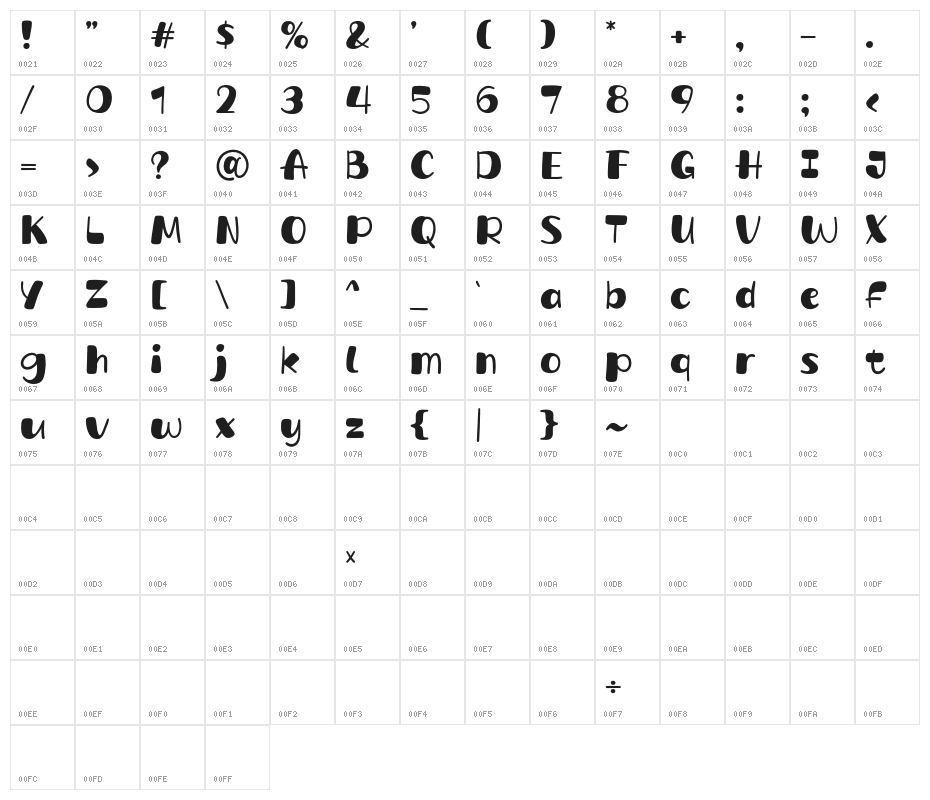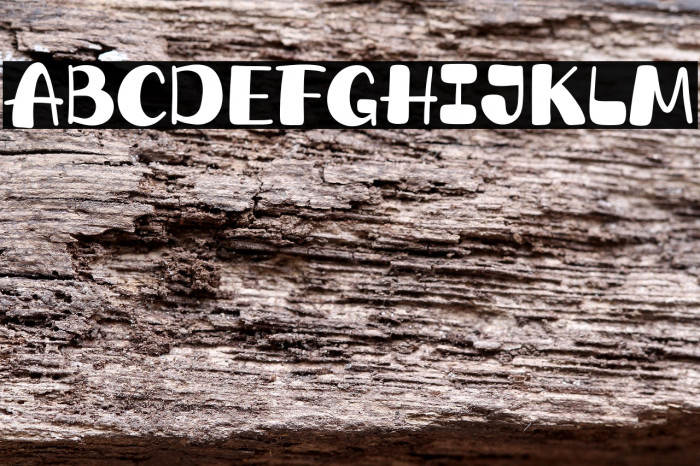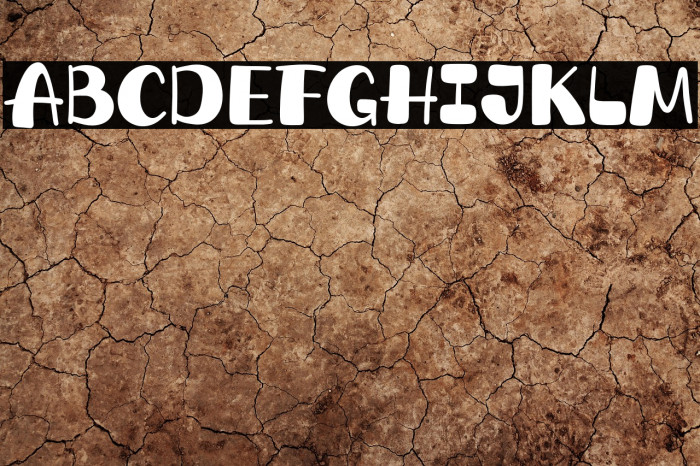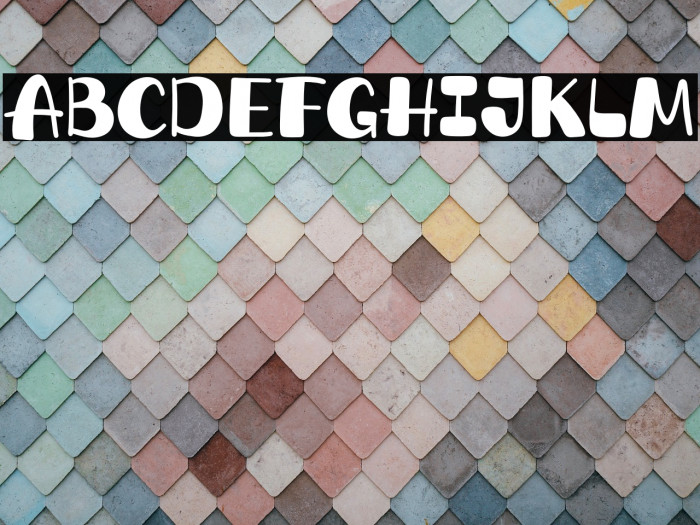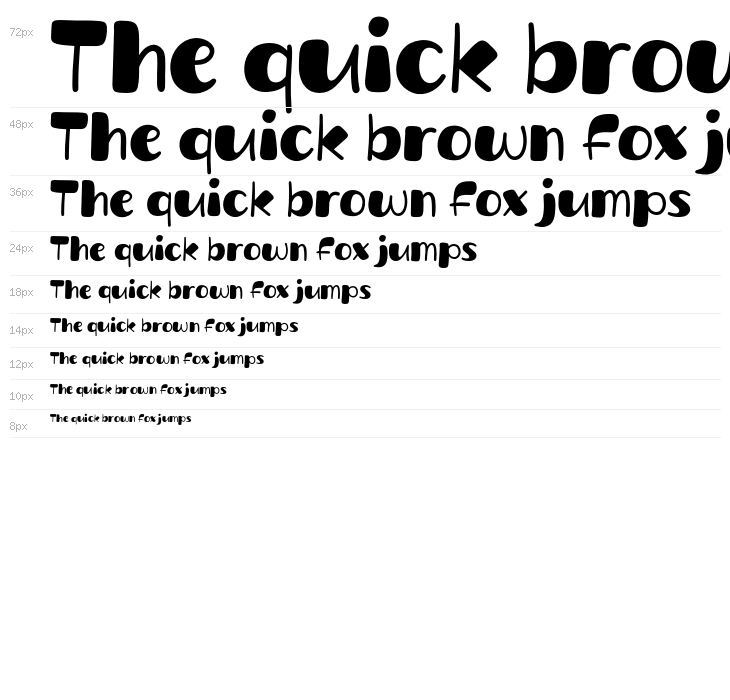
Quicky Story Font
This playful and bold font features a unique blend of rounded and angular elements, creating a lively and dynamic appearance. The characters are thick and substantial, with a whimsical touch that adds personality to any text. The uppercase letters are particularly striking, with a strong presence that commands attention. Lowercase letters maintain the playful theme, with rounded edges and a slightly uneven baseline that enhances the casual feel. Numbers and special characters are consistent with the overall style, offering a cohesive look across all elements. This font is ideal for projects that require a fun and engaging visual impact.
| Overall Style | Playful, Whimsical |
| Proposed Projects | Ideal for children's books, playful branding, posters, and creative social media graphics. |